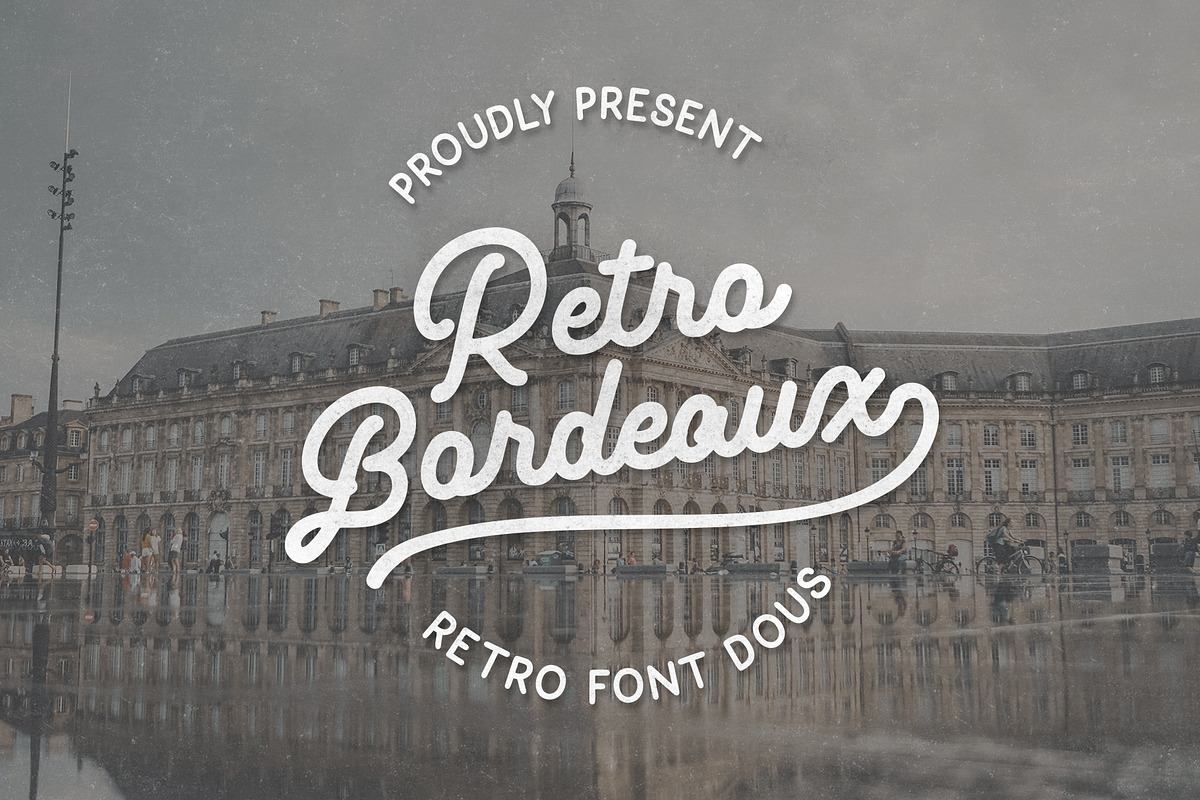
Please note, you must purchase this font for commercial use. However, you can easily download Retro Bordeaux Duos Font Free Download for personal use and testing purposes. Retro Bordeaux Duos Font is a stylish and vintage-inspired font duo that combines bold display lettering with a complementary script font. Perfect for creating eye-catching designs with a retro flair, this font duo is ideal for logos, branding, posters, invitations, and more. Whether you're working on a nostalgic project, a modern retro look, or creating fun promotional material, Retro Bordeaux Duos Font Free Download brings a fresh, playful vibe to your typography. Download Retro Bordeaux Duos Font Free Download today and explore its potential before opting for a commercial license.